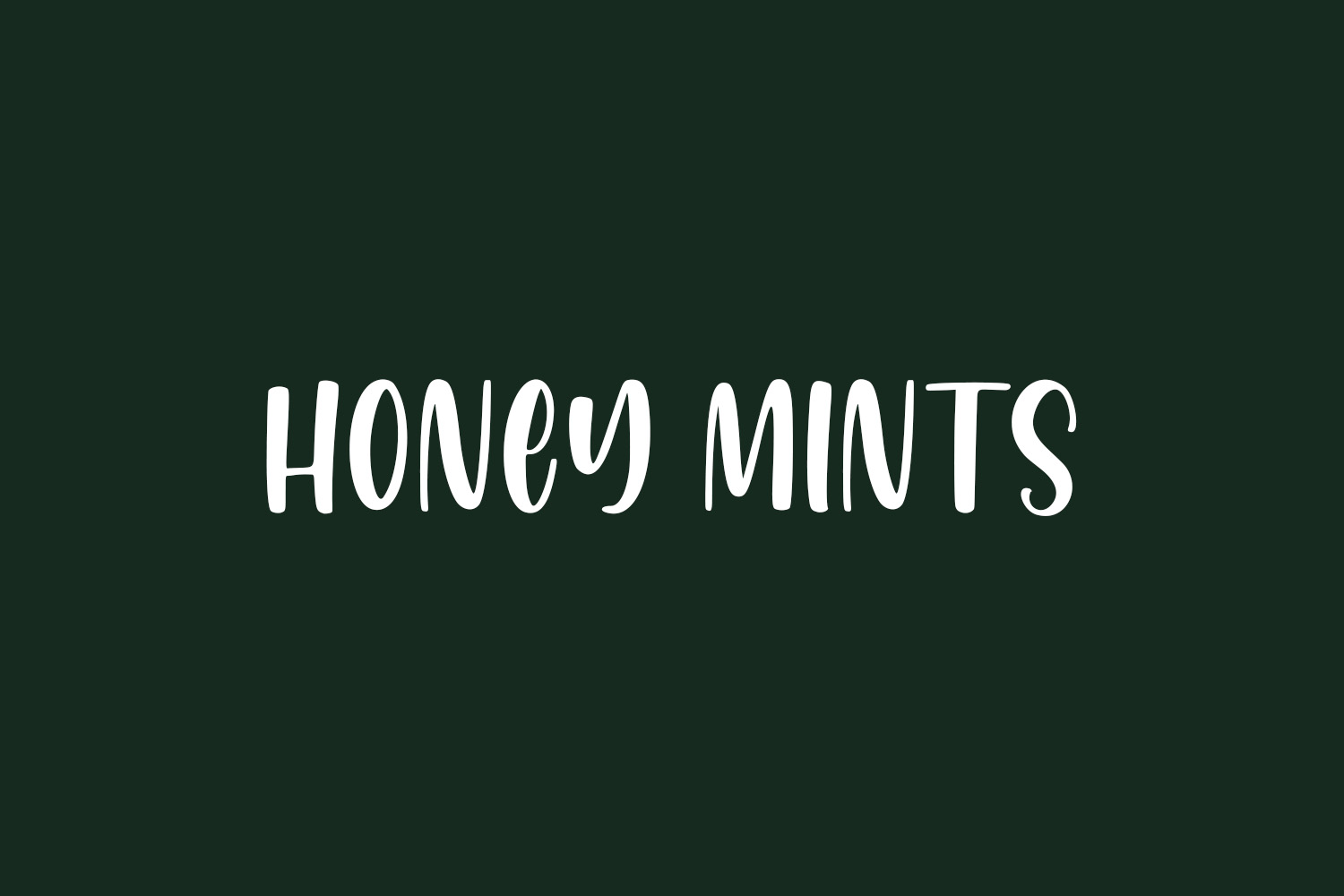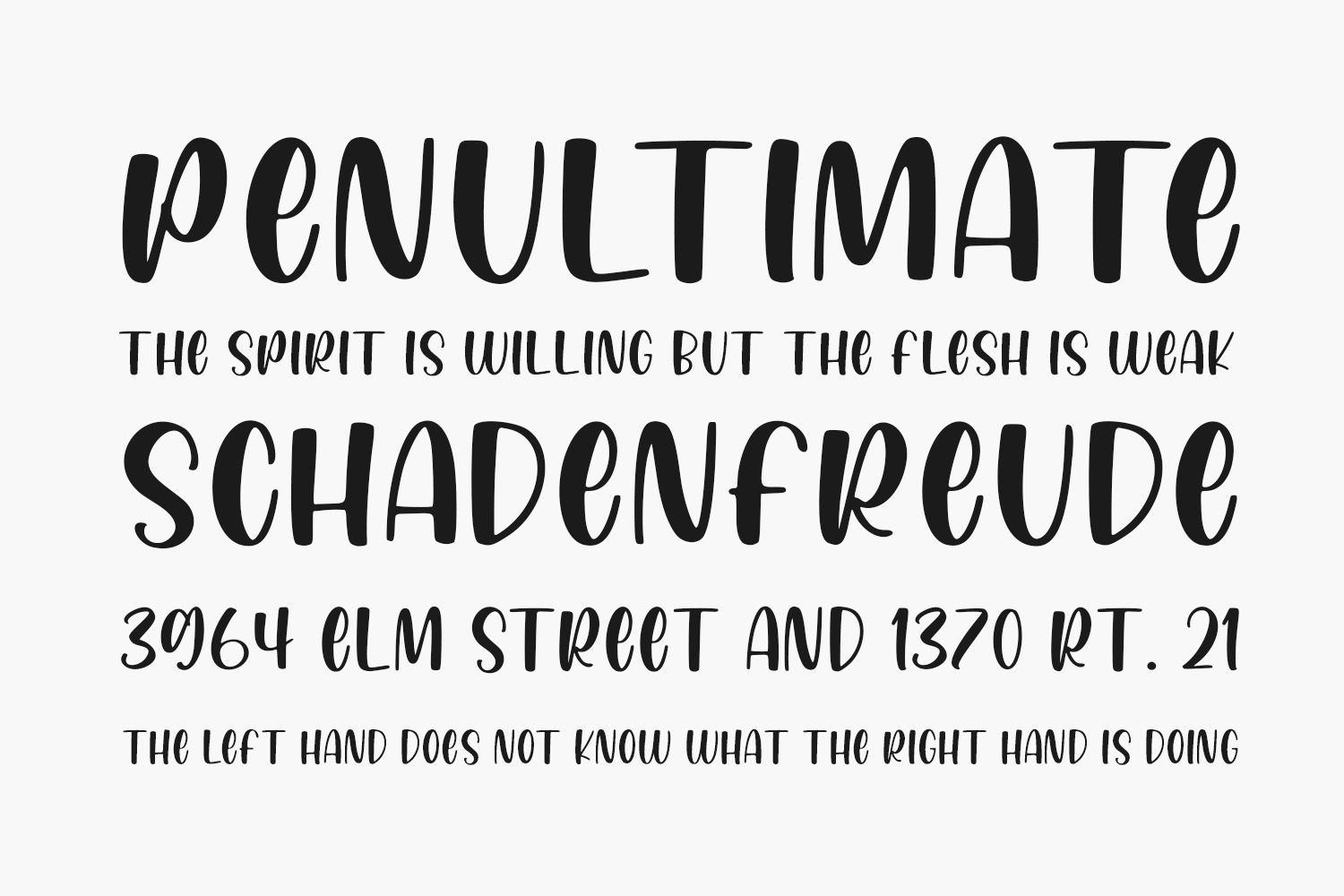
Honey Mints Free Font is a clean, playful, and neat display font. Whether you are using it for cartoon-related designs, children games, quotes, titles, brand names, book covers, posters, or just any creation that requires a touch of joy, this font is a great choice. Honey Mints Free Font was designed by Revo Farisky and is free for personal use only. Please purchase the full version for commercial use.